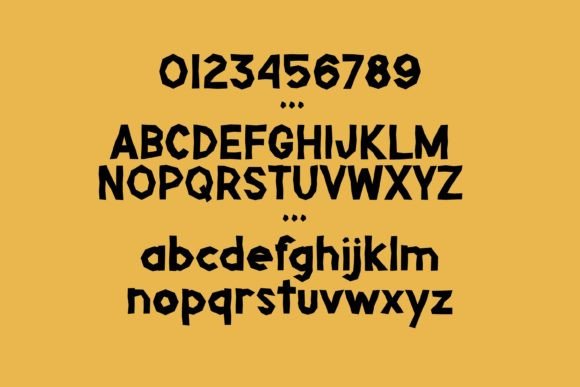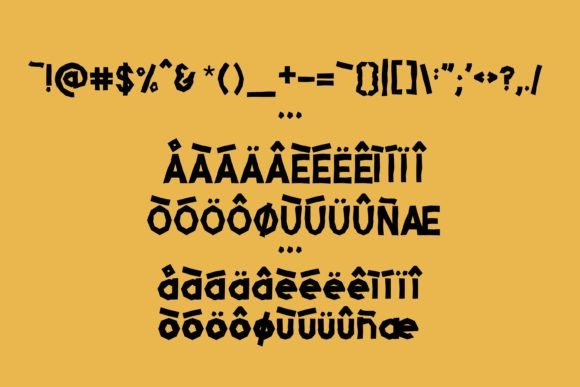
Introduction to Papercut Font
Have you ever stumbled upon an old scrapbook or a handmade card that immediately sparks a sense of nostalgia and creativity? For many designers, this is the moment when the idea strikes – to create something truly unique and special. And that’s exactly what the Papercut Font offers: a playful and bold craft font that adds a touch of handmade charm to any design project.
As a valuable design resource, the Papercut Font is perfect for DIY projects, scrapbook designs, children’s crafts, or any creative venture that requires a fun and bold statement. With its jagged yet clean lines, this font is sure to make a lasting impression on your audience.
About the Papercut Font
Key Features of Papercut Font
- Unique characteristics include hand-drawn elements, paper-like textures, and a distressed finish.
- Perfect for adding a touch of elegance and sophistication to any design, from invitations to branding materials.
Honest Review: Papercut Font
I recently stumbled upon the Papercut Font, and I must say it’s a fantastic addition to any design resource collection. The font is perfect for creating a unique and eye-catching visual identity for your next creative project.
What works less well: ⚠️ While the Papercut Font is a great resource, it may not be suitable for all design projects. The font’s unique style may not be the best fit for simple or straightforward designs, and it may require some creative experimentation to get the most out of it.
Overall, I’m really impressed with the Papercut Font, and I think it’s a great addition to any designer’s toolkit. With a little creativity and experimentation, it’s a great resource for creating unique and high-quality designs.
- High-quality design with intricate details
Papercut Font
The Papercut Font is a free design resource perfect for adding a touch of elegance to your creative project. With its high-quality, transparent background, this font is ideal for use in a variety of applications.
Tips for Getting the Most Out of Papercut Font
The Papercut Font is perfect for use in a variety of creative projects, including invitations, business cards, and marketing materials. Its high-quality, transparent background makes it ideal for use in designs that require a touch of elegance and sophistication.
Alternatives to Papercut Font
Lato is a beautiful, elegant font that’s perfect for use in creative projects where a sophisticated look is required. It’s available for free download and features a transparent background, making it easy to use in a variety of design scenarios.